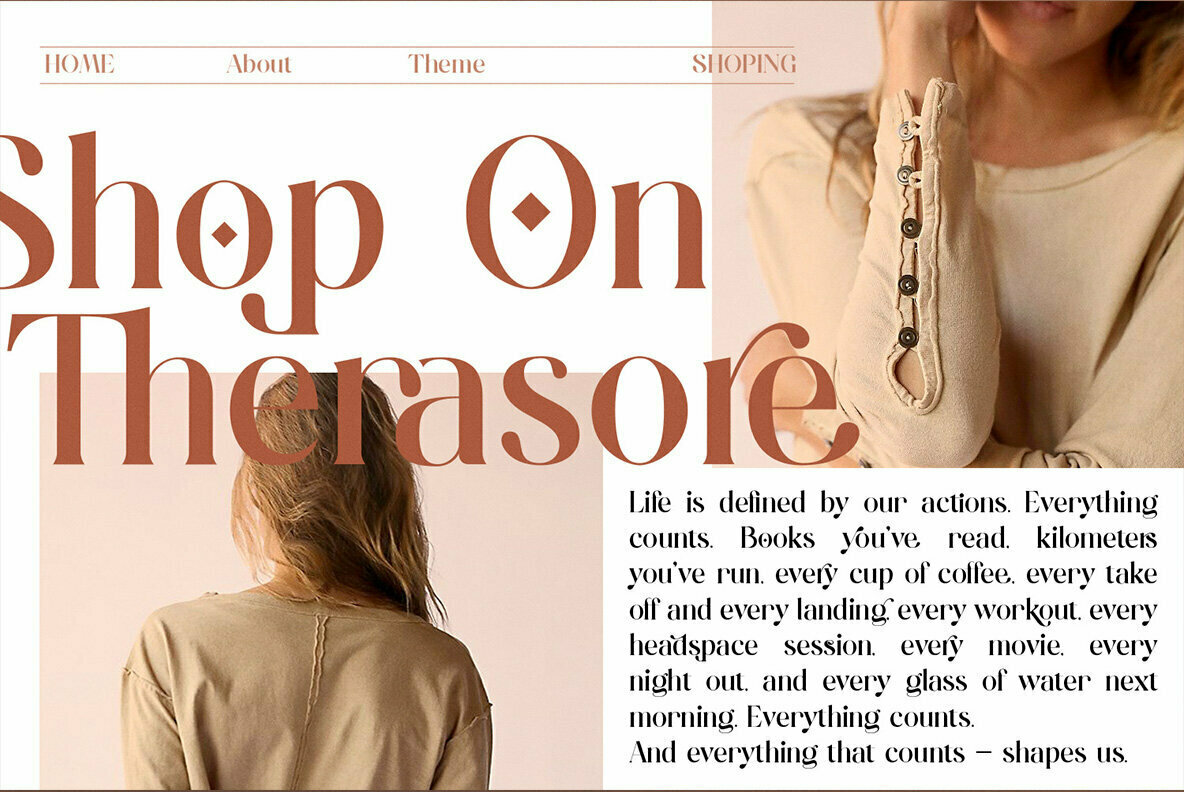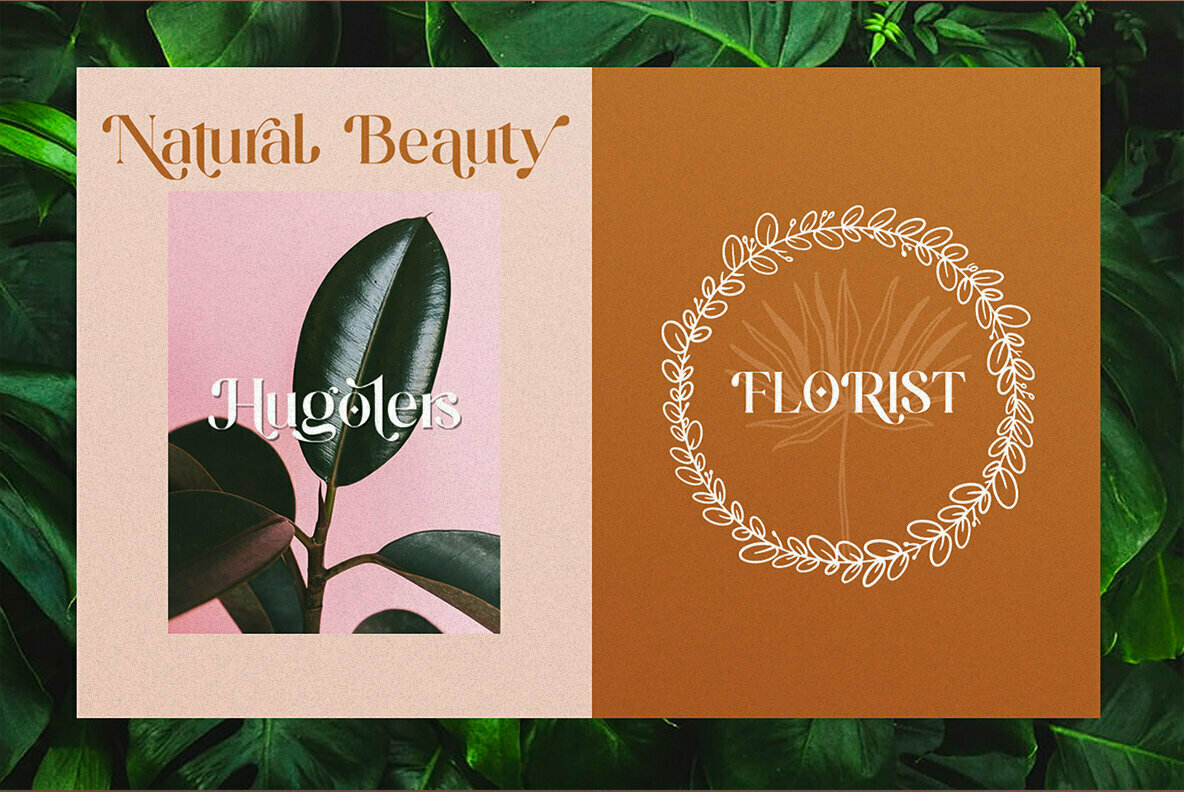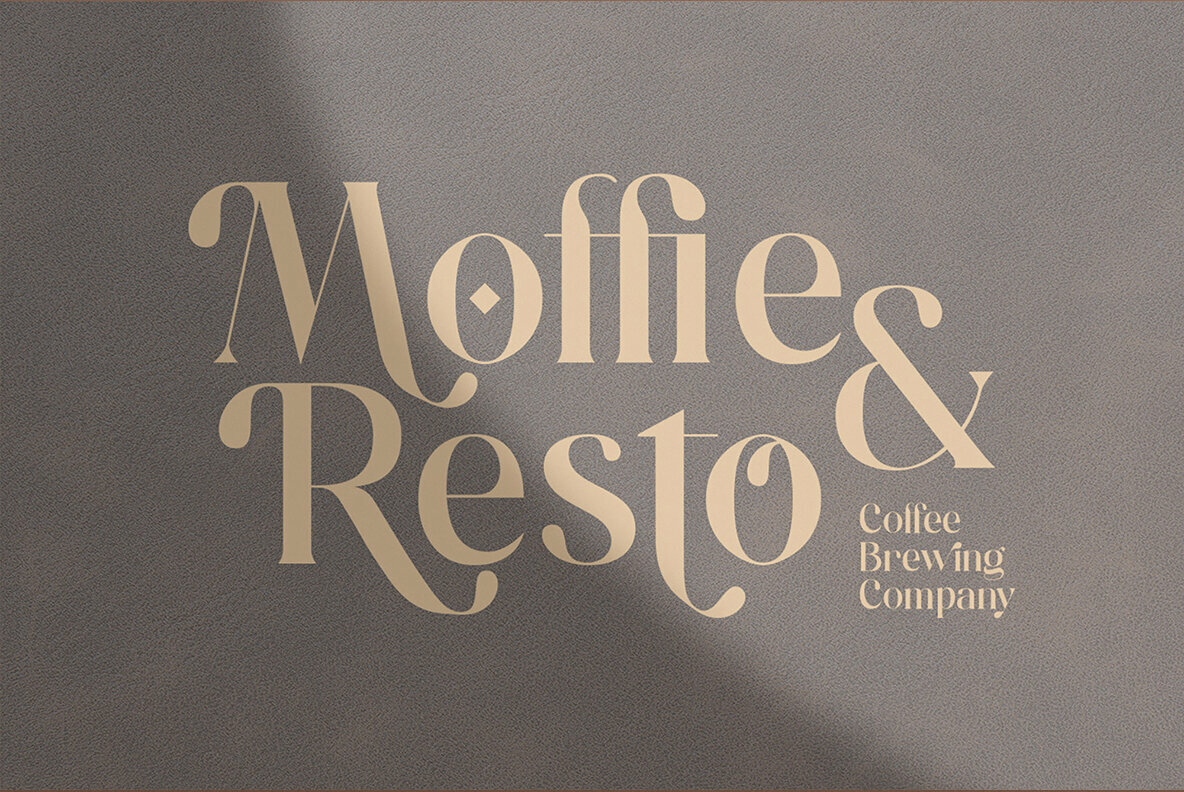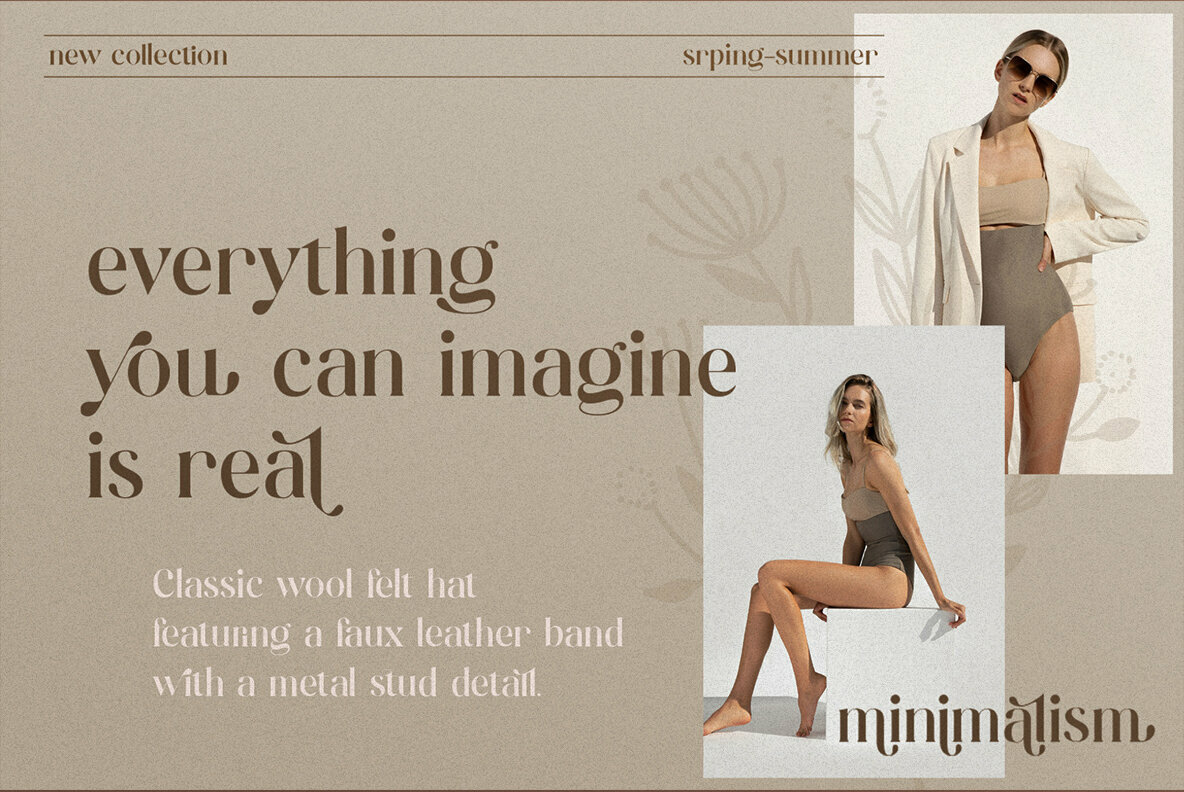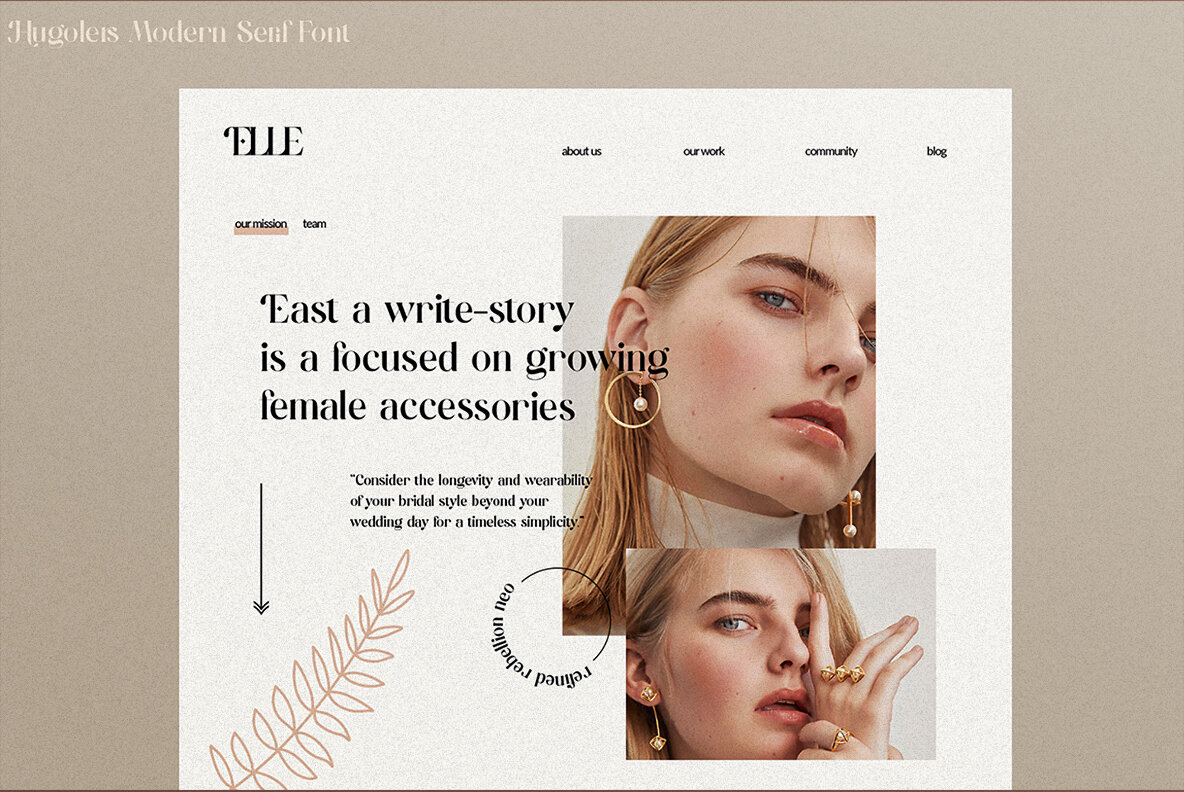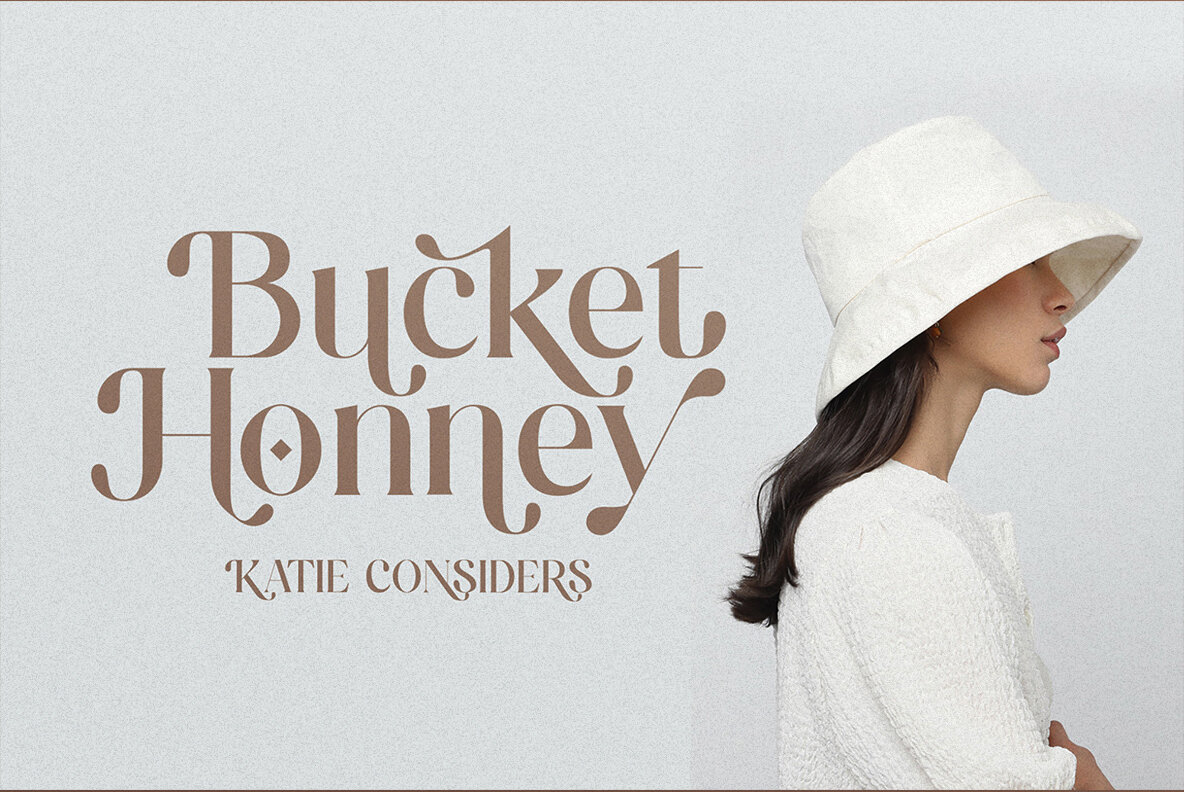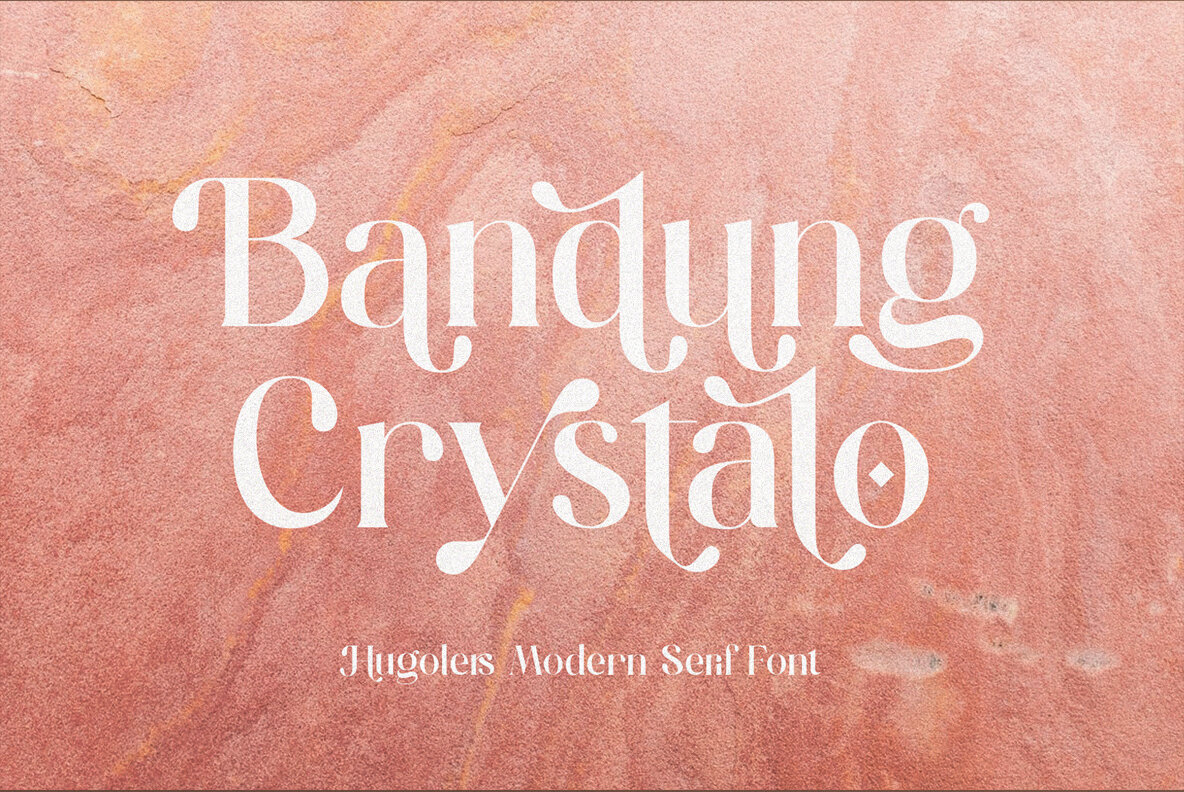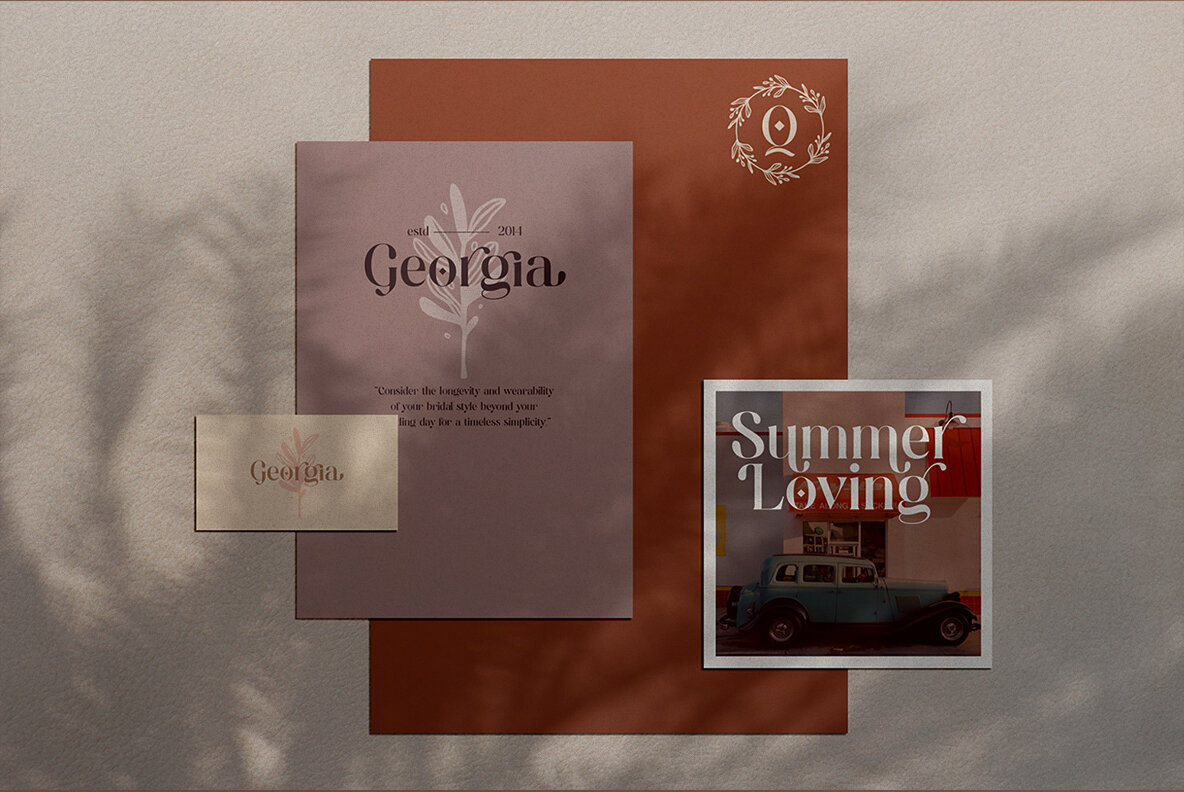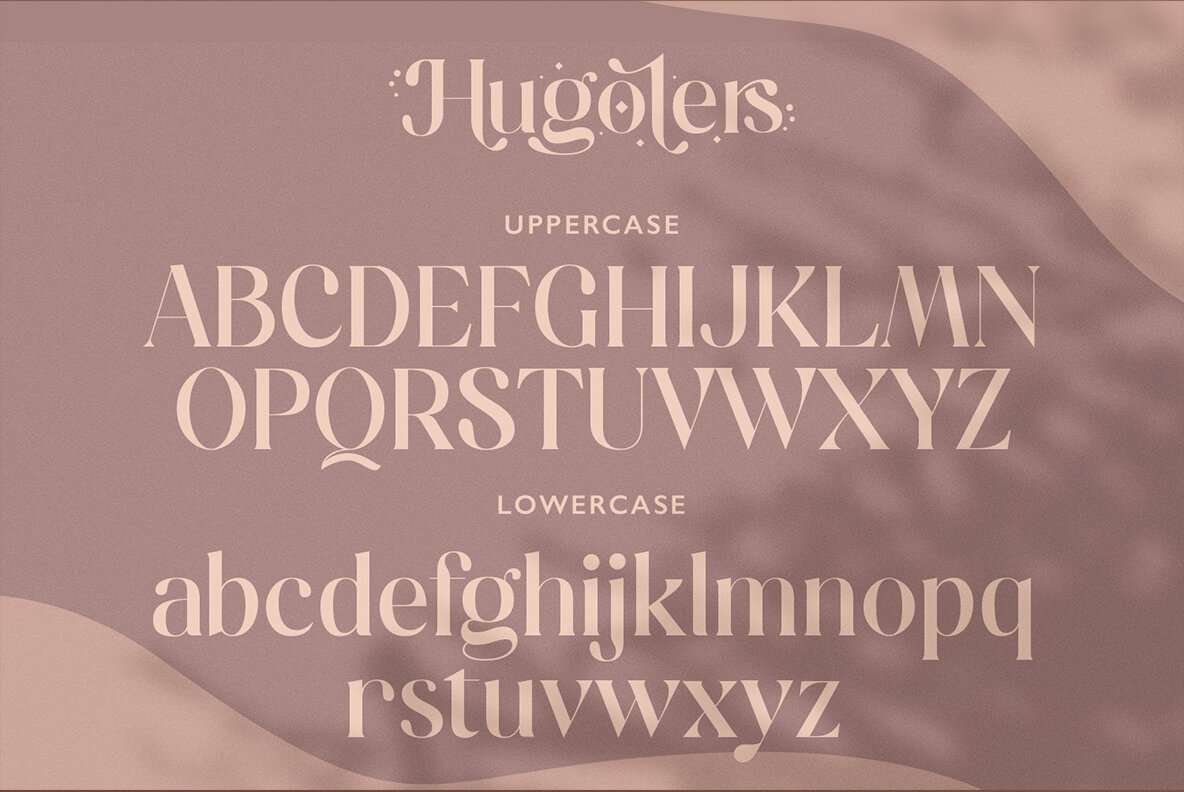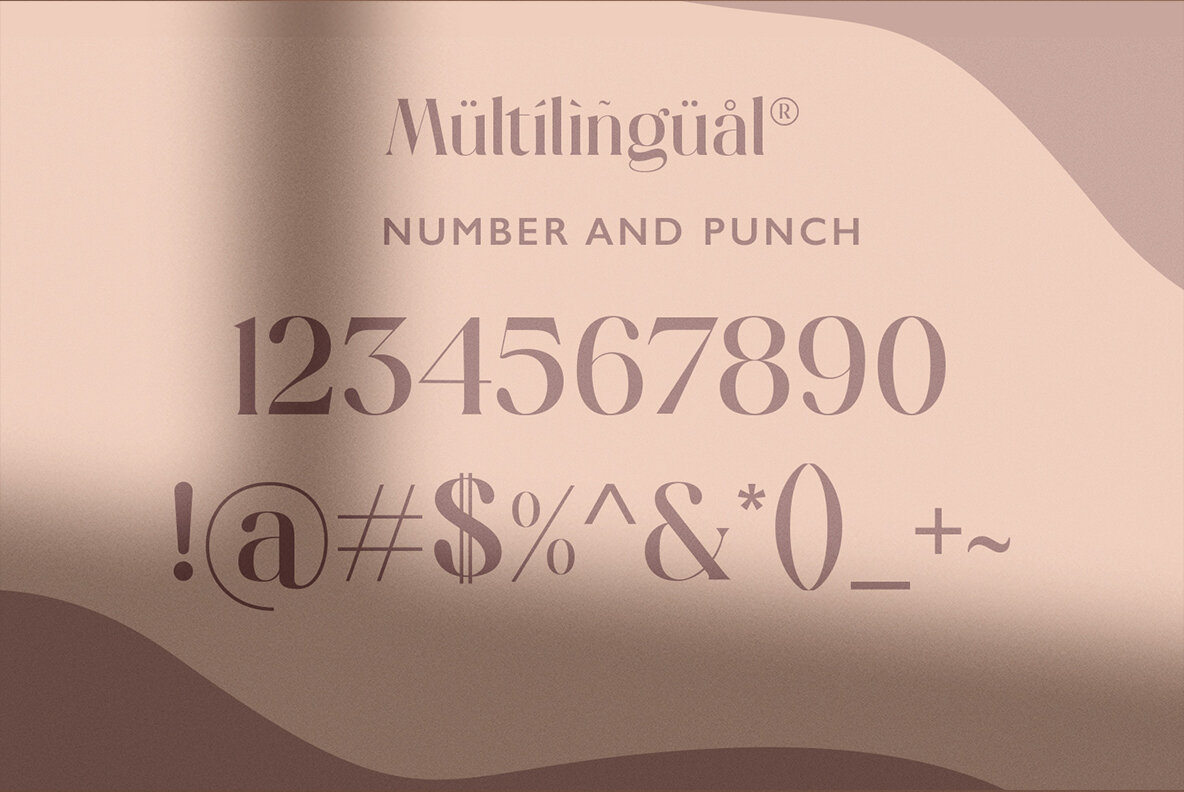
Hugolers Stylish Modern Font
Discover the harmony of tradition and modernity with the Hugolers Stylish Modern serif font. This elegant typeface, equipped with alternatives and ligatures, embraces the nuances of multilingual design, making it indispensable for designers seeking to enhance their creative projects. The Hugolers Stylish Modern font excels in editorial projects, logo design, and clothing branding. Its adaptability extends to product packaging and magazine headers, alongside serving as a sophisticated text overlay against any backdrop. Whether crafting the visual identity of a brand or adding a touch of elegance to printed materials, this font offers an indispensable tool for design connoisseurs.Hugolers Stylish Modern: The Versatile Serif for Contemporary Design